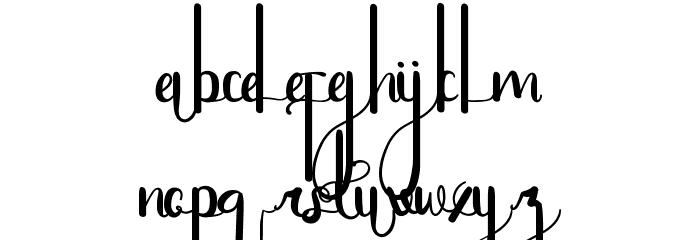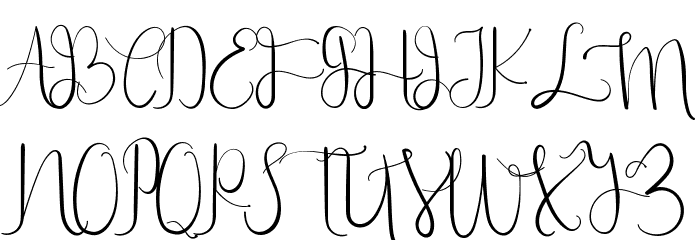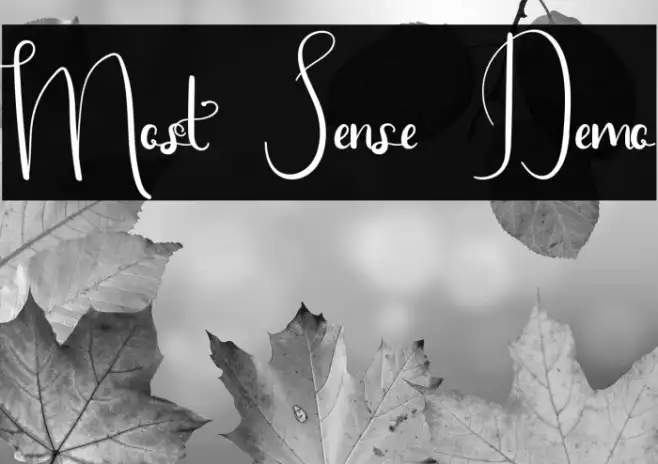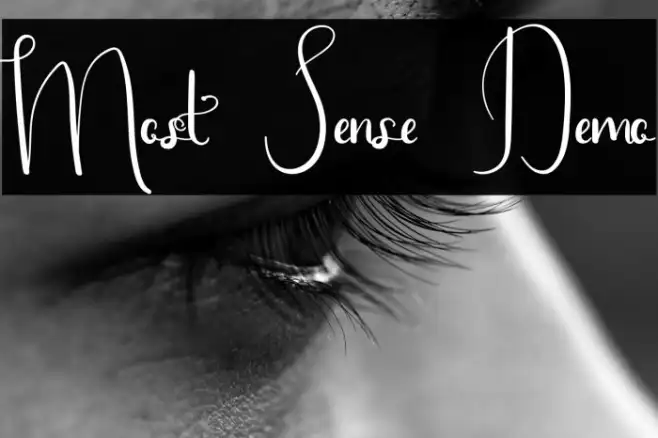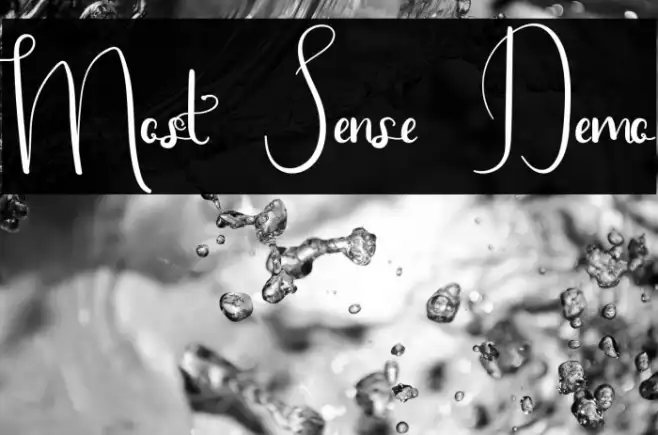
Most Sense Demo Font
This font exhibits a highly decorative and intricate script style, characterized by its flowing, interconnected letterforms. The uppercase letters are particularly elaborate, with extended loops and swirls that create a sense of elegance and sophistication. The lowercase letters maintain a similar style, though they are slightly more restrained, allowing for better readability. The numerals and special characters continue the ornate theme, ensuring a cohesive look across all characters. This font's unique style makes it ideal for projects that require a touch of elegance and flair, such as wedding invitations, luxury branding, or artistic posters.
An ornate and elegant script font with flowing, interconnected letterforms.
- Font: Most Sense Demo
- Proposed Projects: Ideal for wedding invitations, luxury branding, artistic posters, and decorative headlines.
- Use Case: Headlines, Logos, Invitations